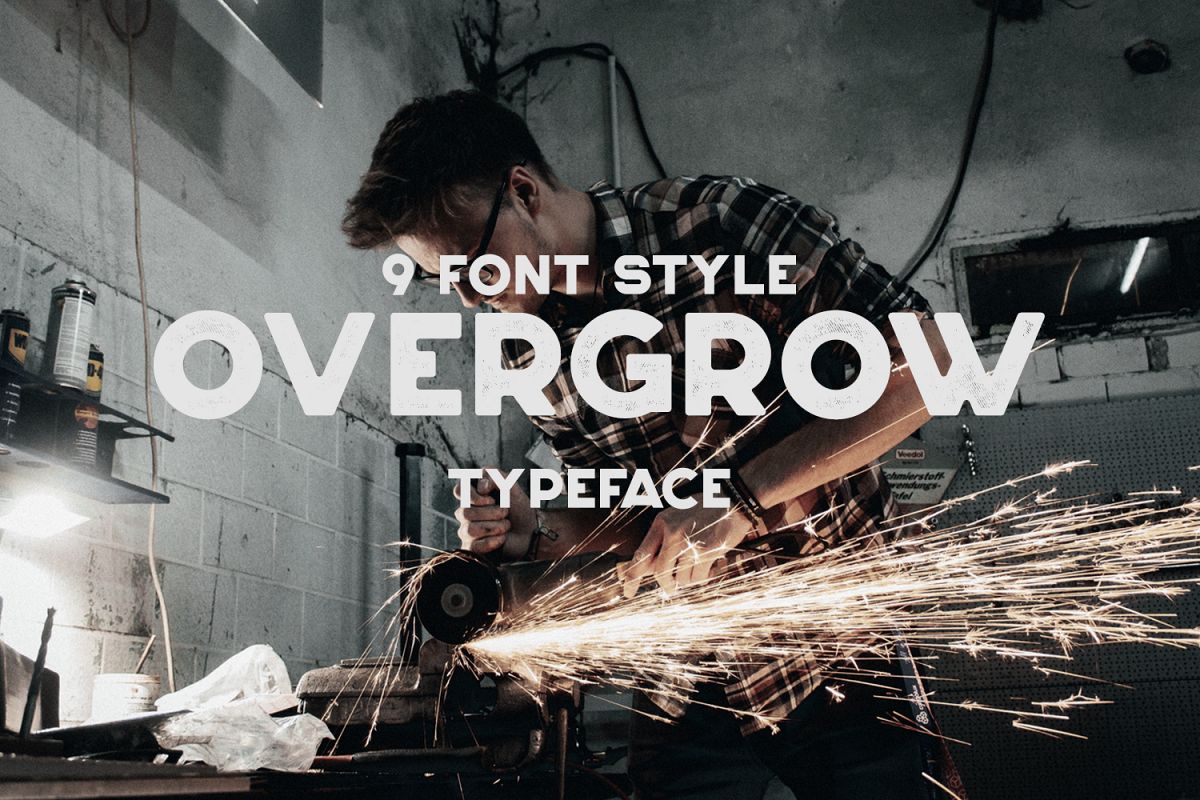
Overgrow
Overgrow-HalfStriped
Overgrow-Rugged
Overgrow-Rusty
Overgrow-Rough
Overgrow-Striped
Overgrow-Outline
Overgrow-CutOff
Overgrow-Rounded
Overgrow
Overgrow typeface is uppercase letters with 9 font styles to improve your design, it came with open type features such stylistic alternates & some of ligatures. Overgrow typeface suit for logo, headings, branding, magazine, cover album, book cover, game title, apparel design, quotes, invitations, flyer, poster, greeting cards, product packaging, printed, etc.
• Overgrow regular
• Overgrow cut off
• Overgrow outline
• Overgrow rough
• Overgrow rounded
• Overgrow rugged
• Overgrow rusty
• Overgrow striped
• Overgrow half striped